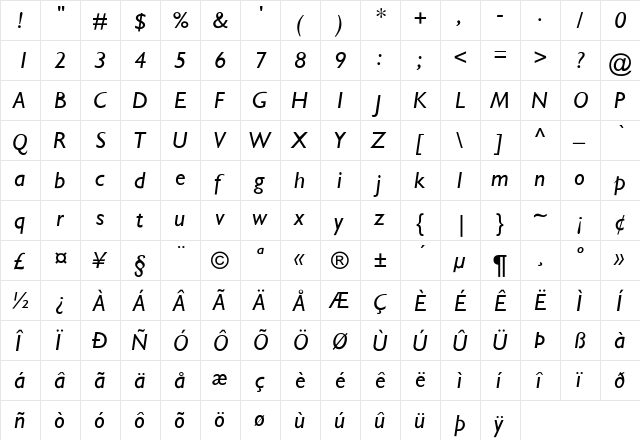
Hopkins-Italic Regular
Design Context for Hopkins-Italic Typeface
Hopkins-Italic offers clean, dependable letterforms without strong stylistic allegiance, making it a practical choice for designers who need flexibility. The dynamic lean of this cut emphasises speed and emphasis in any layout.
Pro Tip: Try Hopkins-Italic for annotation and caption copy alongside an upright companion — the contrast in angle creates a dynamic but ordered typographic system.